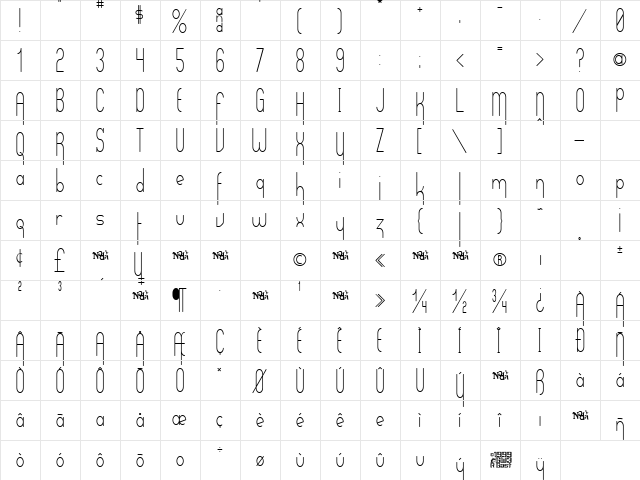
Verticalization Regular Font Preview
Verticalization Regular
Verticalization Regular Font Details
Design Context for Verticalization Typeface
Verticalization is a composed and adaptable typeface that performs quietly and consistently across a wide range of design contexts.